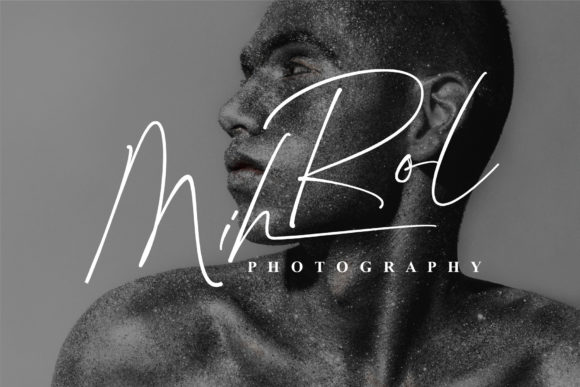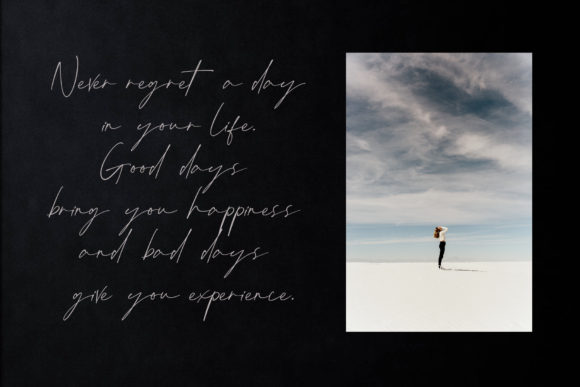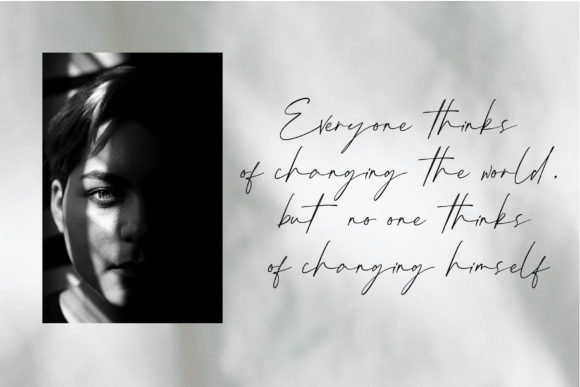
Introduction to Rettry Font
Rettry is a stylish and delicate script font.
It has a clean, thin and smooth vibe and it will be a hit for any design that you want to add it to .
Why Choose Rettry Font?